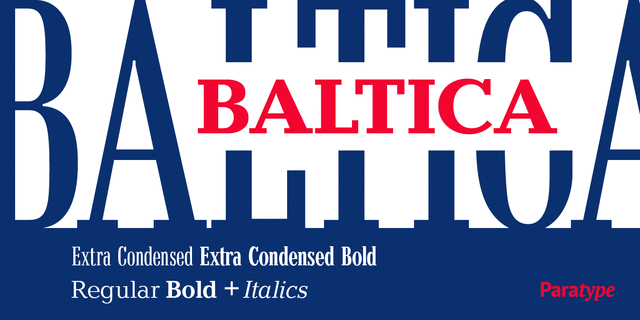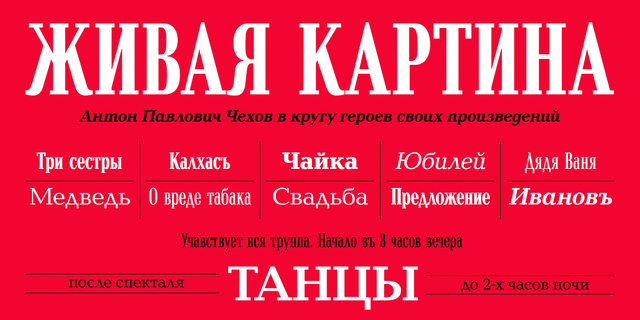
Baltica (8 fonts)
About BalticaDesigned at Polygraphmash type design bureau in 1951-52 by Vera Chiminova, Isay Slutsker, et al. Based on Candida of Ludwig & Mayer, 1936, by Jakob Erbar. This typeface has the characteristics of slab-serif, but serifs are much thinner. The capitals are of generous width, x-height is large. Good legibility in small sizes makes this typeface useful in newspaper and magazine typography, while strong character shapes provide for pleasant display lines. The digital version in 3 weights was designed at Polygraphmash by Alexander Tarbeev in 1988. Small capitals, additional Bold, Extra Bold and Extra Condensed styles were developed by Manvel Shmavonyan and released by ParaType in 2008.Bold, and Extra Condensed styles were developed by Manvel Shmavonyan and released by ParaType in 2008.
Associations for font family BalticaTypeface personality and character:
responsible, calm, flat, clear, business, balanced, technically, straight, accurate, objective, logical, pragmatic, practical, solid, urban, strict, serious, static, stable, high-quality, cutting, sharp, motivating, convincing, reliable, authoritative, self-assured, important, correct, crisp, independent, cold, significant, mandatory, reputable, strong, heavy, rude, traditional, tall, loud, old-fashioned, nostalgic, ambitious, close-fitting